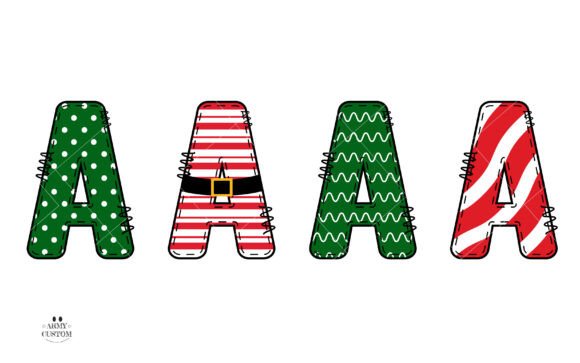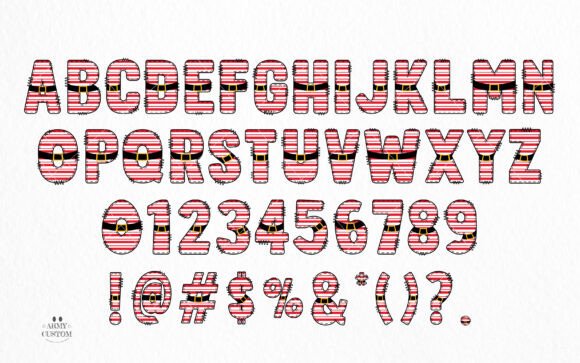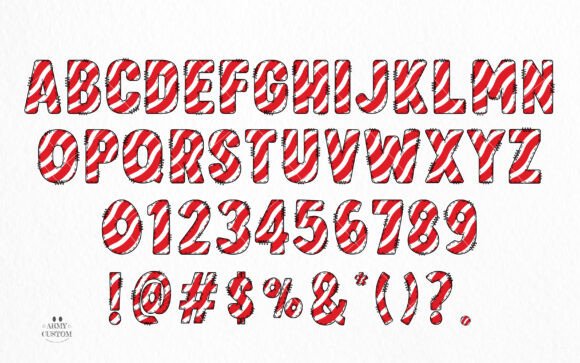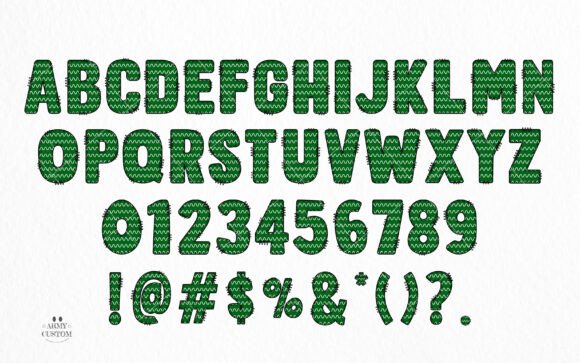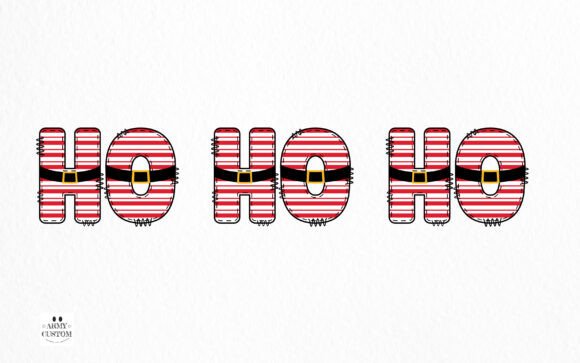
Elevate Your Festive Projects with the Delightful Christmas Army Bundle Font
The holiday season is upon us, and with it comes the joy of creating festive projects that bring cheer to our loved ones. Whether you’re a designer, crafter, or DIY enthusiast, having the right tools and resources can make all the difference in making your holiday creations shine. This is where the Christmas Army Bundle Font comes in – a playful and whimsical font that’s sure to add a dash of merriment to any design project.
A Playful Addition to Your Holiday Design Toolkit
The Christmas Army Bundle Font is a delightful font that’s inspired by the adorable antics of Santa’s helpers. Its jovial style makes it an ideal choice for creating vibrant holiday decorations, adding a touch of whimsy to your designs, or simply spreading holiday cheer through your projects. With this font, every letter spelled out becomes a joyous celebration, perfect for getting you in the mood for the holiday season.
Design and Crafting Ideas